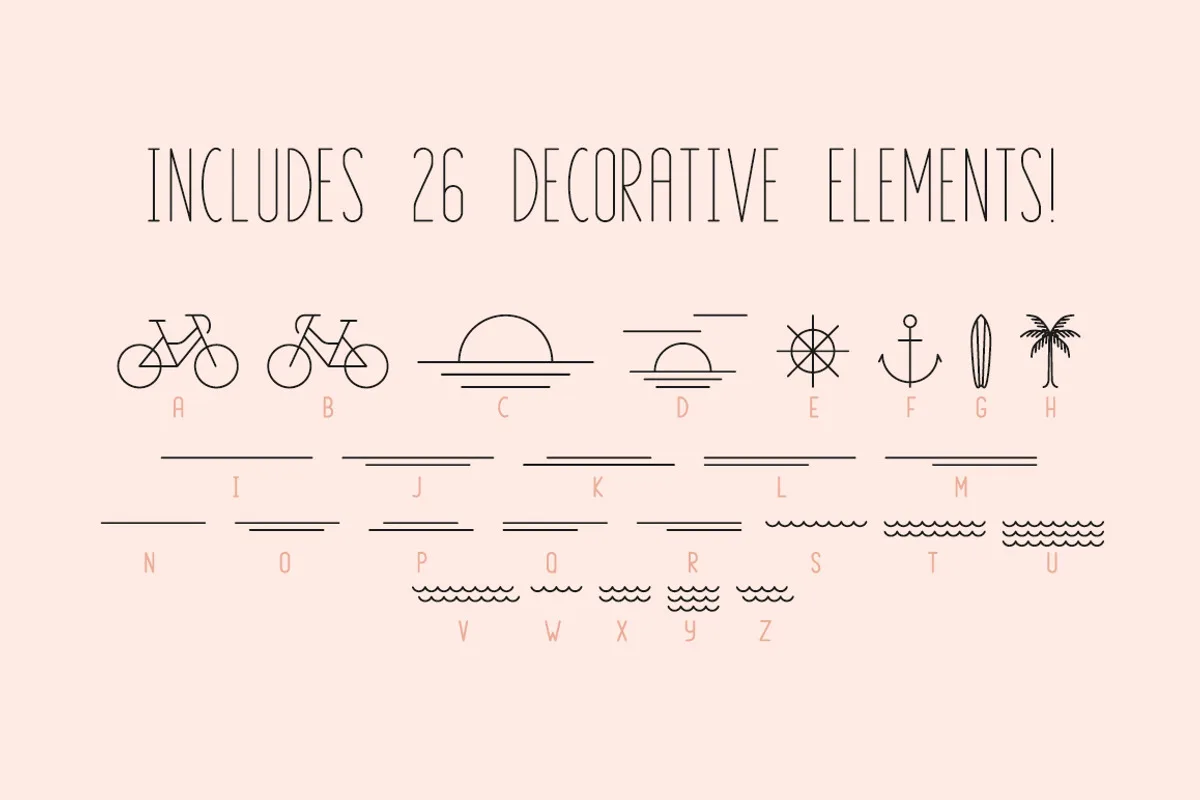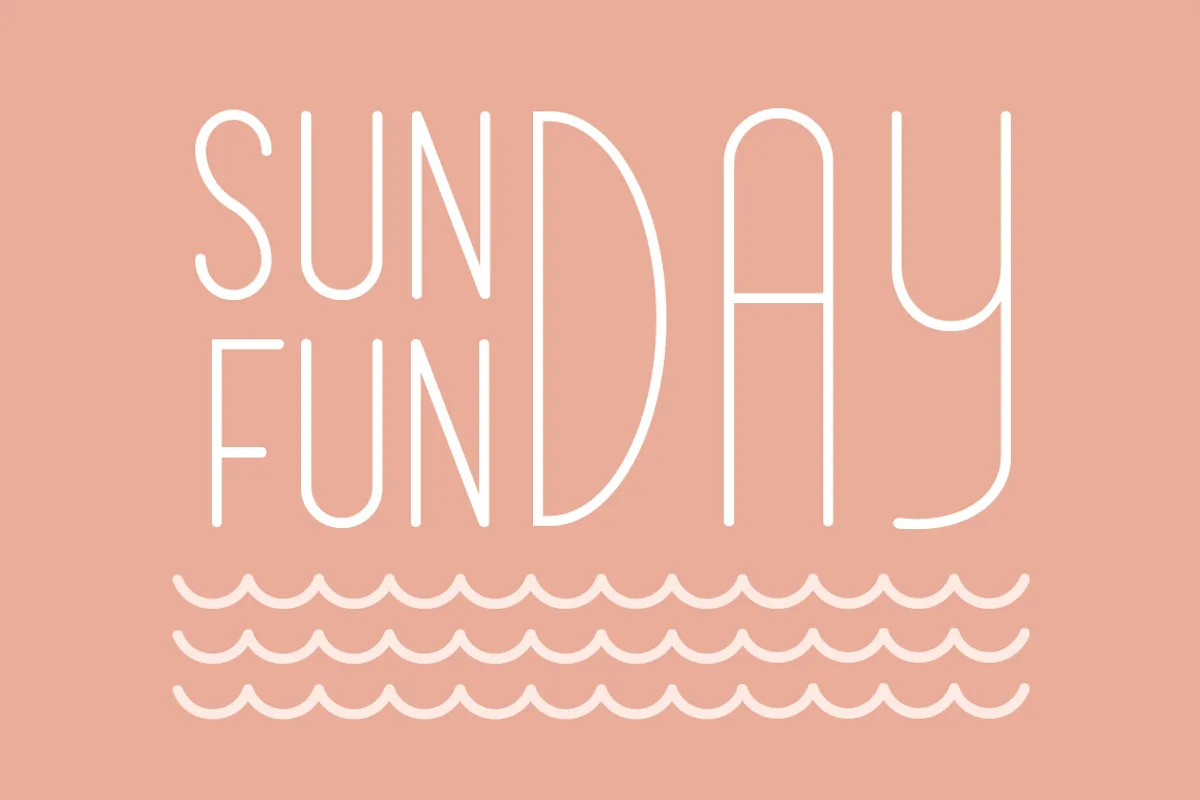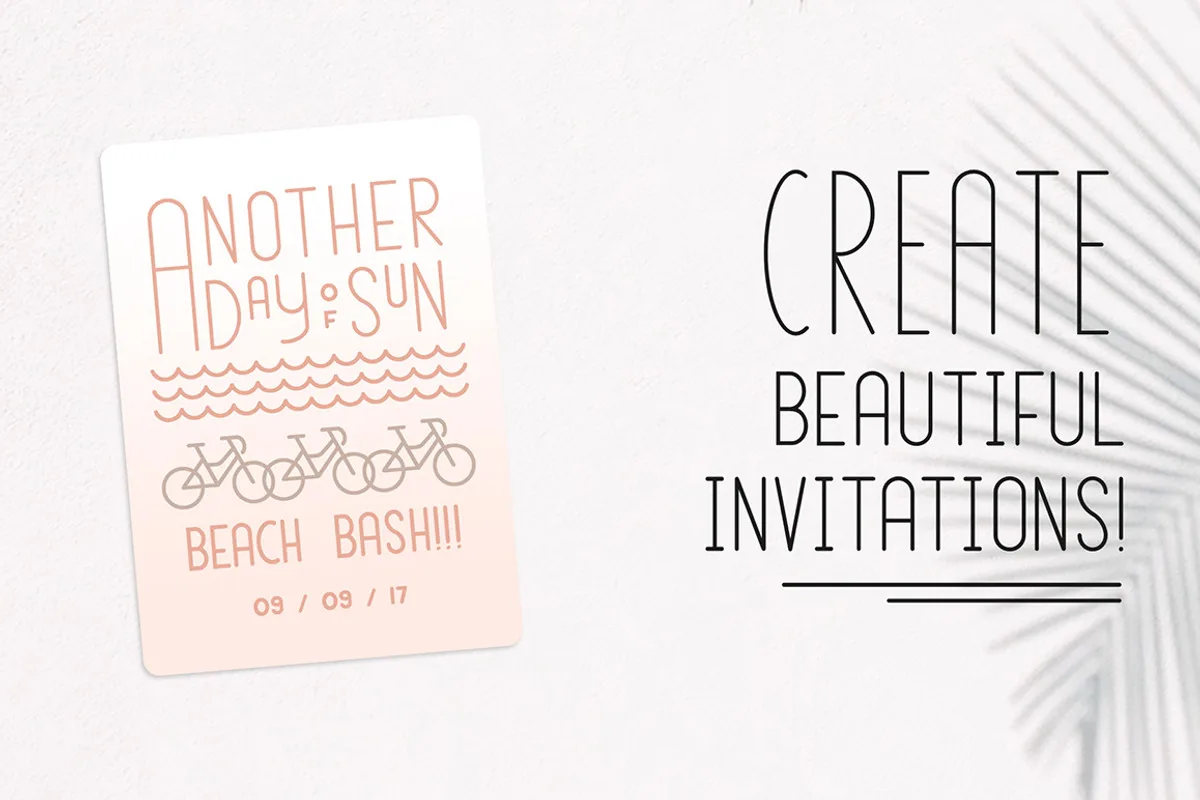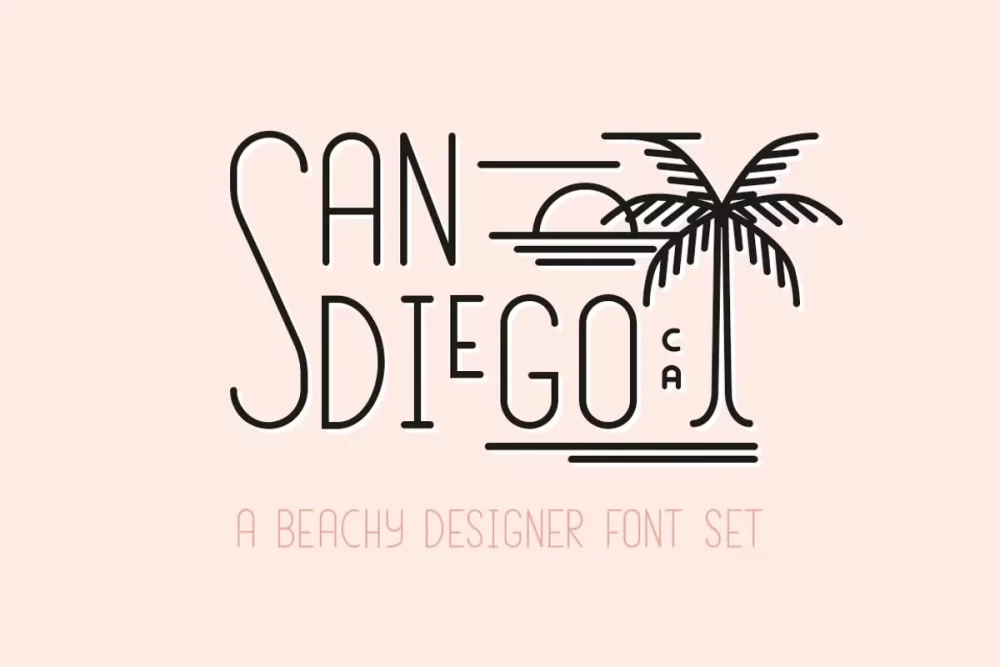
San Diego is a four-font typeset that is made specifically to make a designer’s job a little easier. It has a beautiful vintage style that makes retro line-style logos a breeze to make! It’s also perfect for invitations, signage, and so much more.
There are four fonts in four different sizes (tall, medium, small, and extra small) that work together to create a cool vintage logo look.
The line heights are currently meant to make switching letters within a single typed word easy. You can observe this in the video. The extra-small size requires a little more line height adjustment, as can be seen.